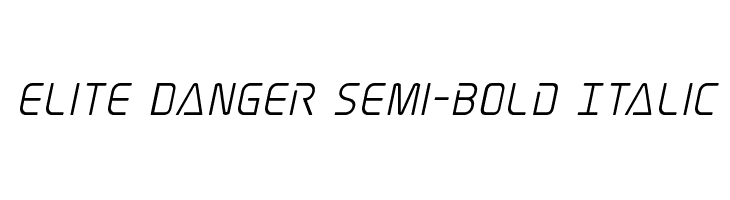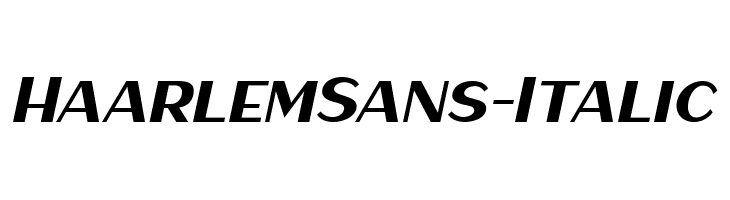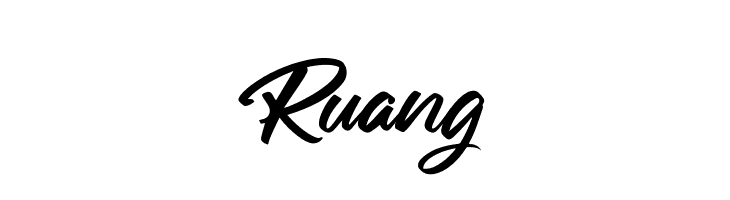
A modern, italic sans-serif font with a dynamic and sleek design.
A bold, geometric font with a maze-like, intricate design.
A decorative font with intricate, industrial-style patterns within each letter.
A bold, modern font with clean lines and a slight slant, perfect for headlines.
A hand-drawn, sketch-like font with playful and informal characteristics.
A playful, dotted font with a unique and informal style.
A classic cursive script with elegant, connected letters for a handwritten look.
A playful, handwritten font with fluid strokes and a whimsical style.
A bold, expressive script font with modern, flowing curves and artistic flourishes.